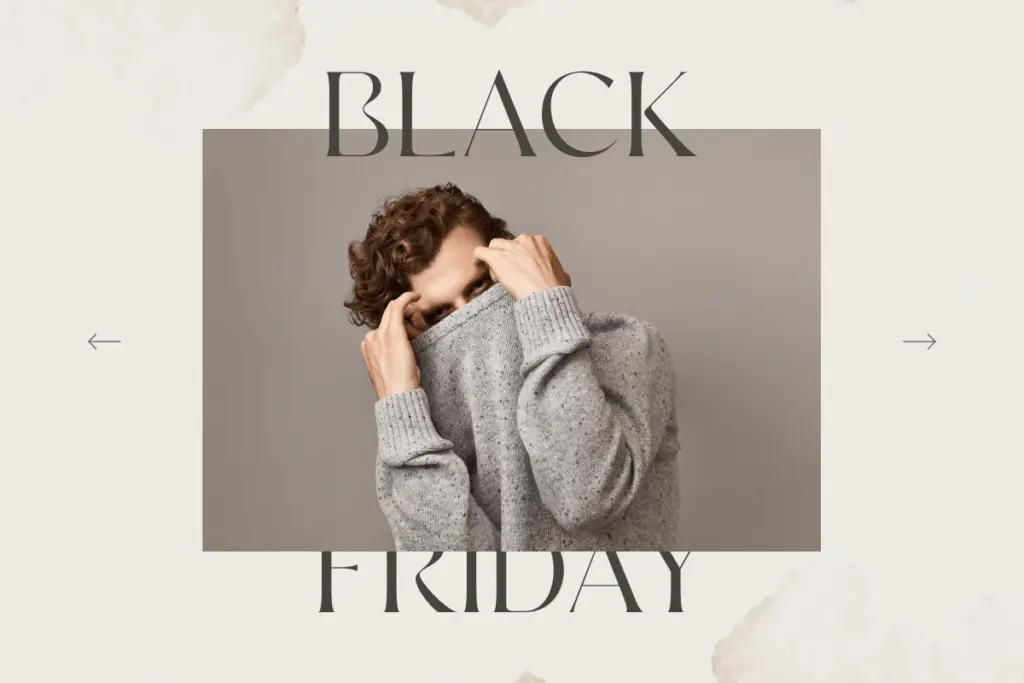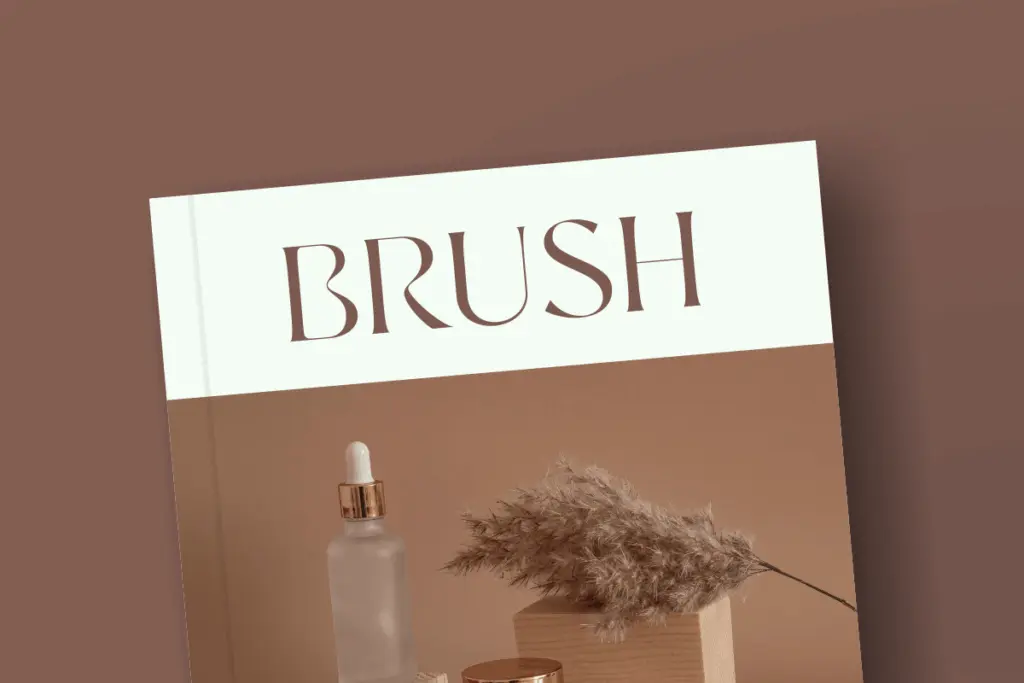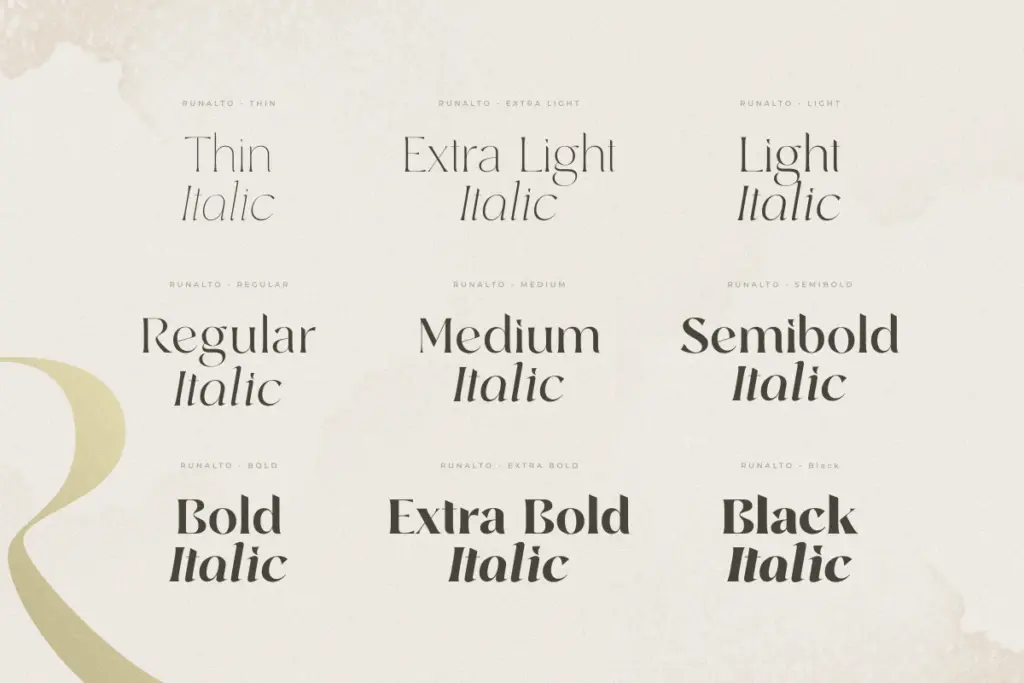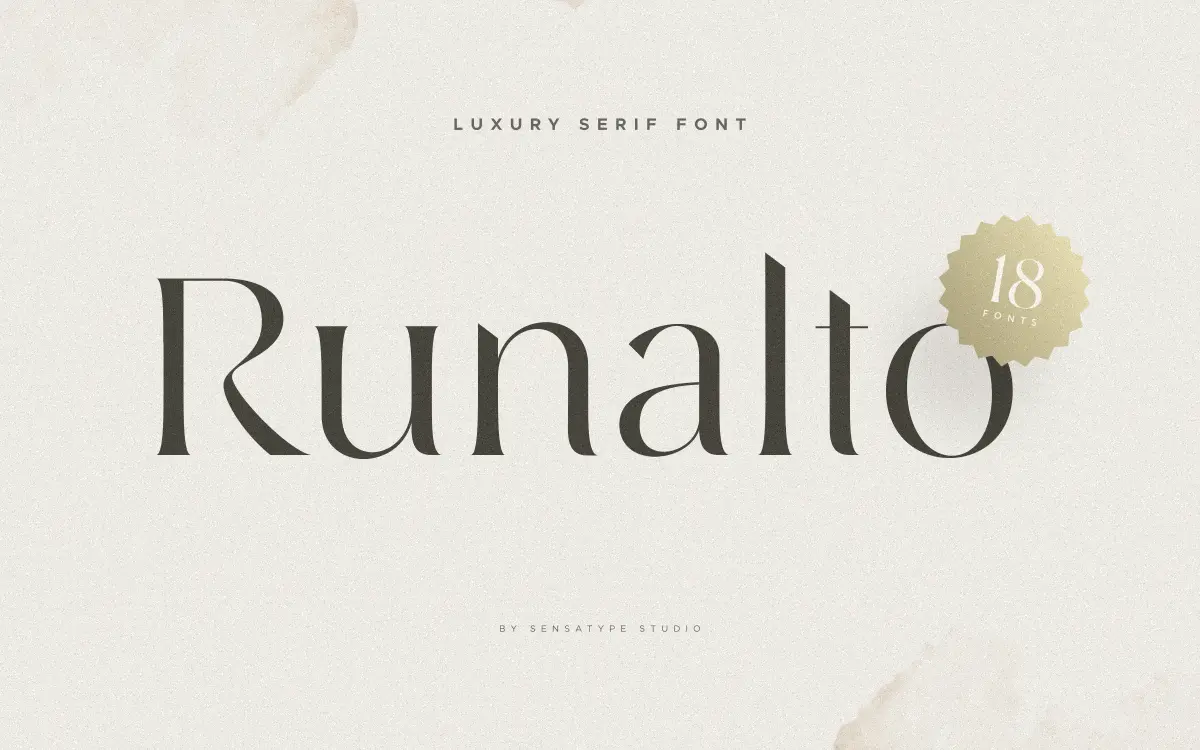
Runalto sits in the crowded field of “luxury serif” display faces that fashion and beauty brands have leaned on heavily over the past few years: high-contrast strokes, sharpened serifs, and a general air of restraint that reads as expensive at large sizes. The contrast is the main event here — thick vertical stems taper into fine, almost hairline serifs and crossbars, which gives the face its editorial, engraved feel. Curves are kept tight and upright rather than swashy, so despite the marketing language around it, Runalto reads closer to a modern didone-influenced serif than a script or calligraphic face.
Where it distinguishes itself from the dozens of similar releases is in how evenly the contrast is handled across the alphabet. Rounds like O and C don’t lose their weight at the point of contrast the way cheaper interpretations of this style often do, and the counters stay open enough that the letters don’t clog up when set tight. It’s a face built for confidence at large sizes rather than subtlety at small ones.
The package covers uppercase and lowercase letters, numerals, and standard punctuation, along with multilingual character support, which is useful if your work needs accented Latin characters for European markets. The brief doesn’t specify OpenType features such as ligatures or alternates, so treat the set as a solid, no-frills luxury serif rather than one with a deep stylistic-alternate system to dig through — if swash variation or contextual ligatures matter to your workflow, check the character map before committing.
Runalto’s natural home is exactly what its high contrast and tight rhythm suggest: logotypes, wordmarks, magazine mastheads, packaging for cosmetics or hospitality, and social graphics where a handful of words need to look considered rather than casual. At headline sizes — 36pt and up, roughly — the serifs and contrast read cleanly and give a strong sense of craft.
It is not a working text face. Push it below display sizes and the hairline serifs start to disappear or clog depending on output, which is true of almost every face built this way, but worth stating plainly since sellers rarely do. Pair it with a plain, low-contrast sans or a quiet serif for body copy, and let Runalto do the job of a single confident headline or a short line of set copy — a tagline, a product name, a monogram. Asked to do more than that, it starts to show the limits that come with any font built primarily for impact rather than range.
- Contrast stays even across rounds and stems rather than collapsing at small counters
- Reads confidently at large sizes for logotypes and headline work
- Multilingual character support extends its use beyond basic English-only branding
- No mention of stylistic alternates or ligatures, so the character set is fairly plain for a display serif
- Hairline serifs make it unsuitable for anything below large display sizes
Runalto delivers the high-contrast, editorial-luxury look it promises at headline sizes, with evenly handled contrast that avoids the clogging problems common in this genre. It's not built for anything below display sizes, and the feature set is fairly plain compared to fonts in this style with deeper alternate systems.